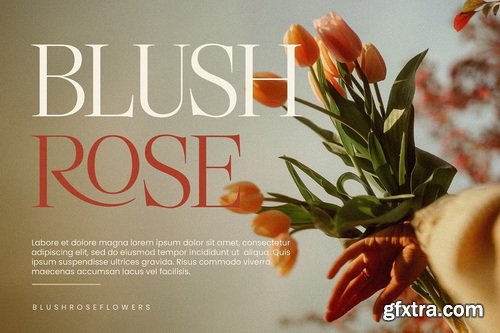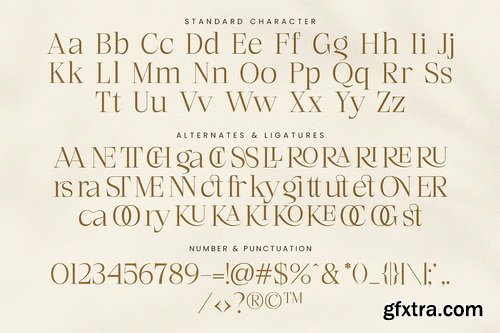
- Luxury Stylish is a modern serif font with sharp details and a clean, stylish presence. Designed to stand out in contemporary branding and visual identity projects, this typeface features strong contrast and sleek letterforms that feel bold, sharp, and current.
- Packed with 42 unique ligatures, it allows designers to create expressive logos and custom headlines that feel one-of-a-kind. Whether you're designing packaging, brand marks, social media graphics, or editorial layouts, Luxury Stylish delivers a polished and professional look with modern sophistication—without losing its creative edge.